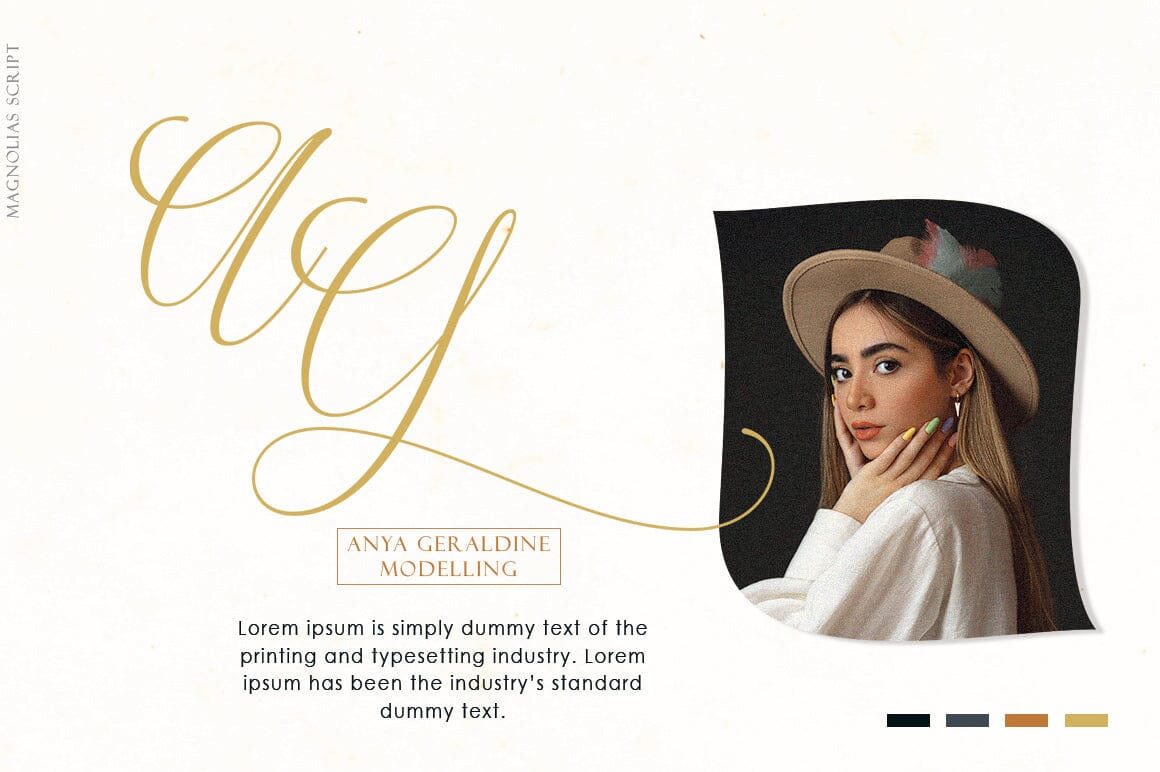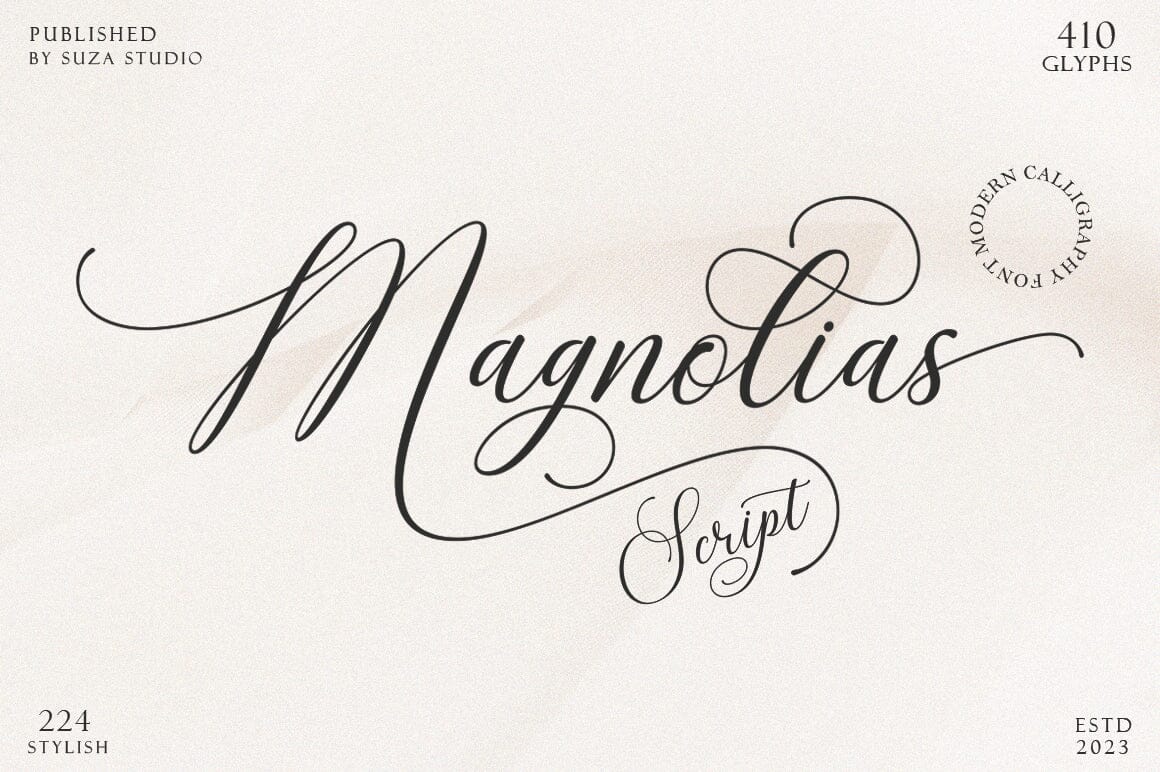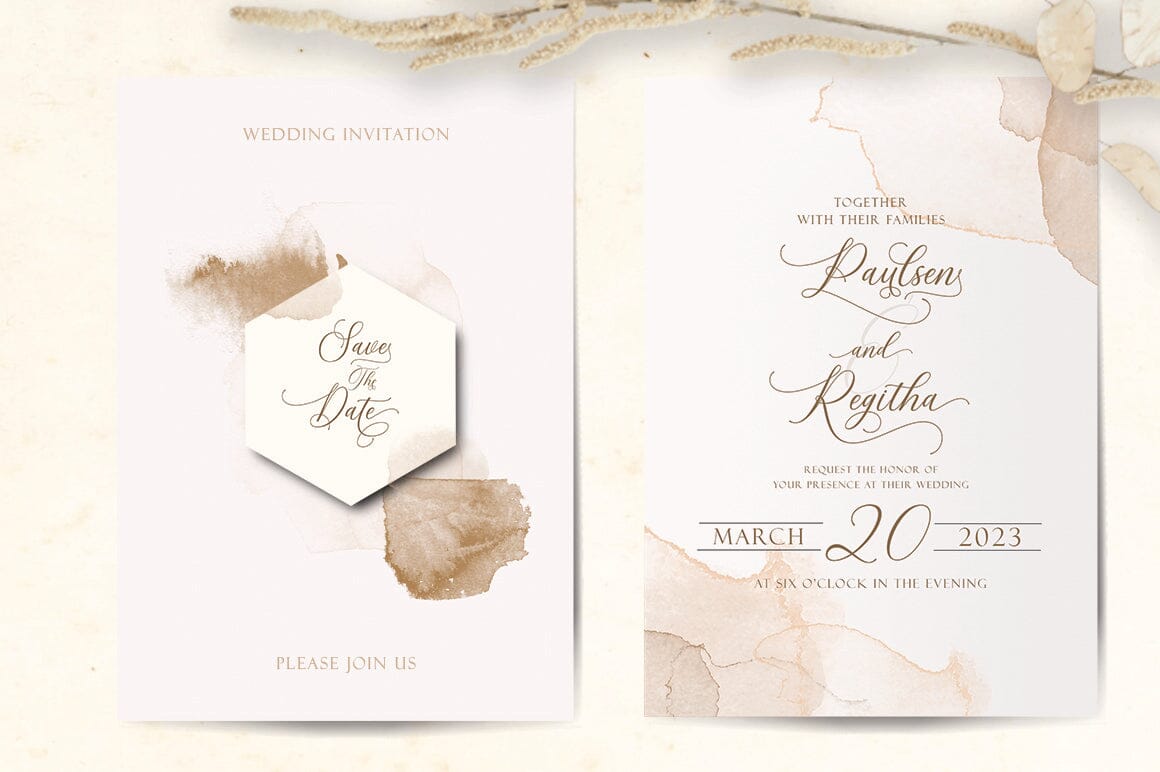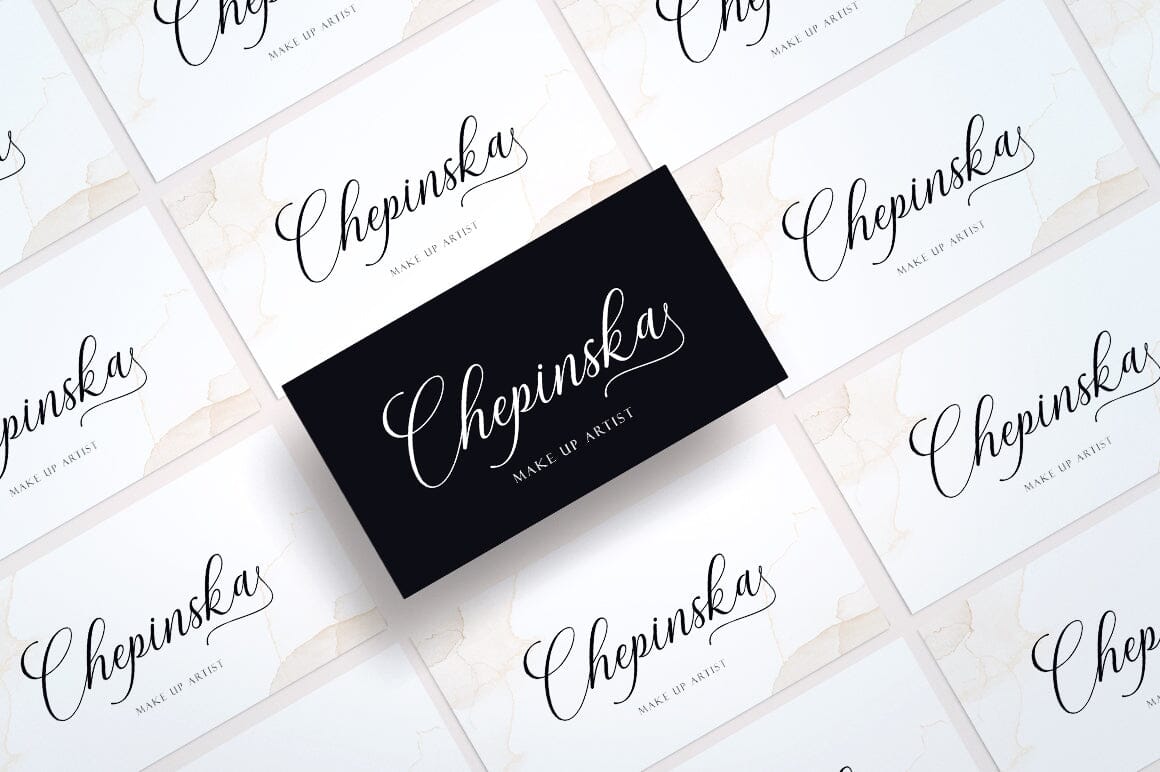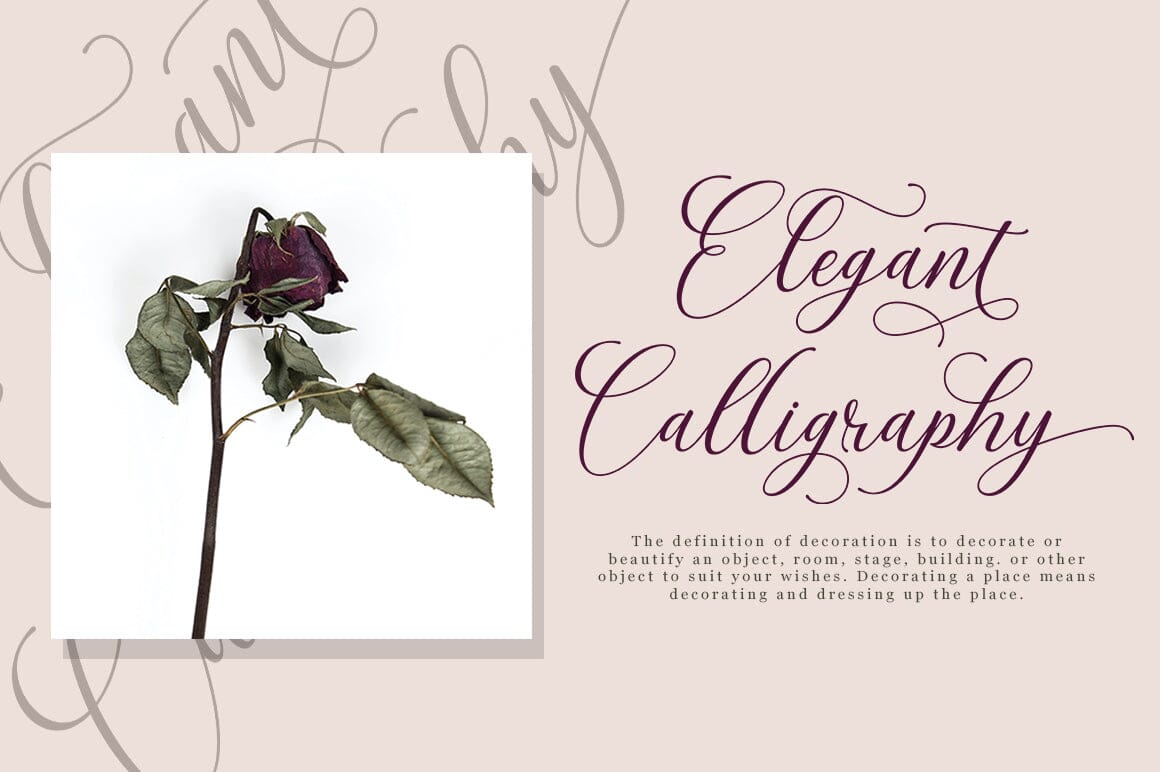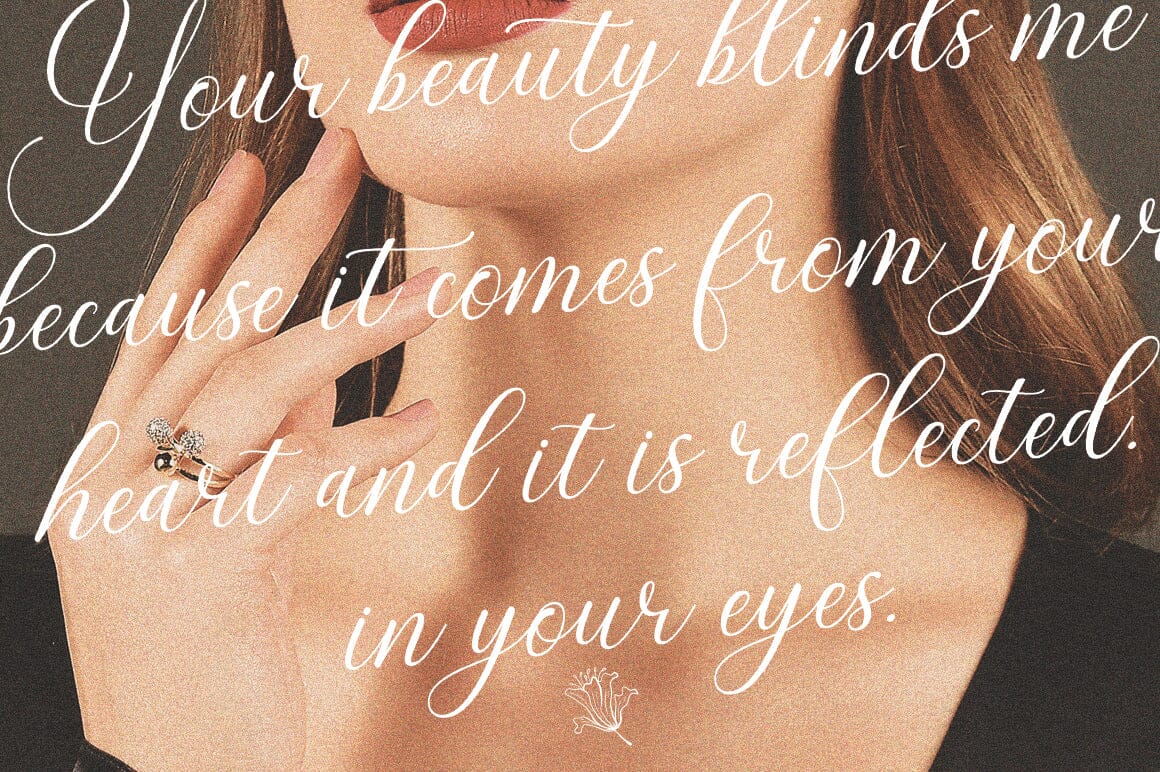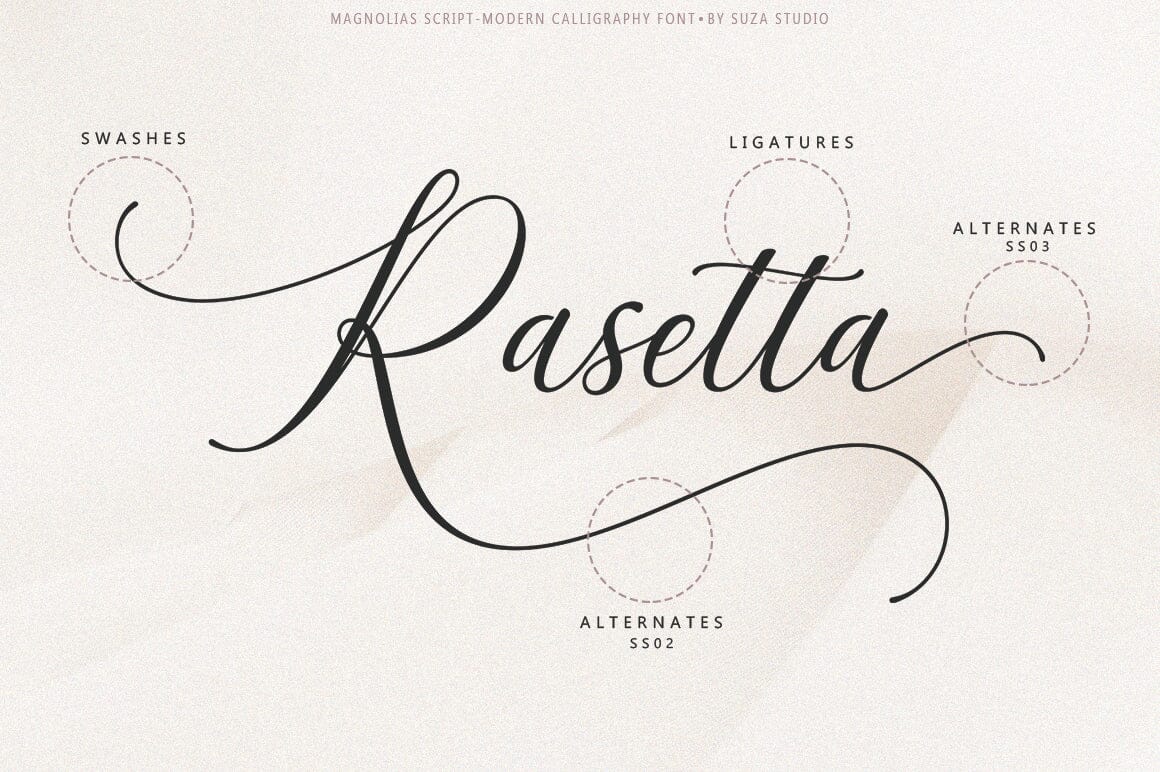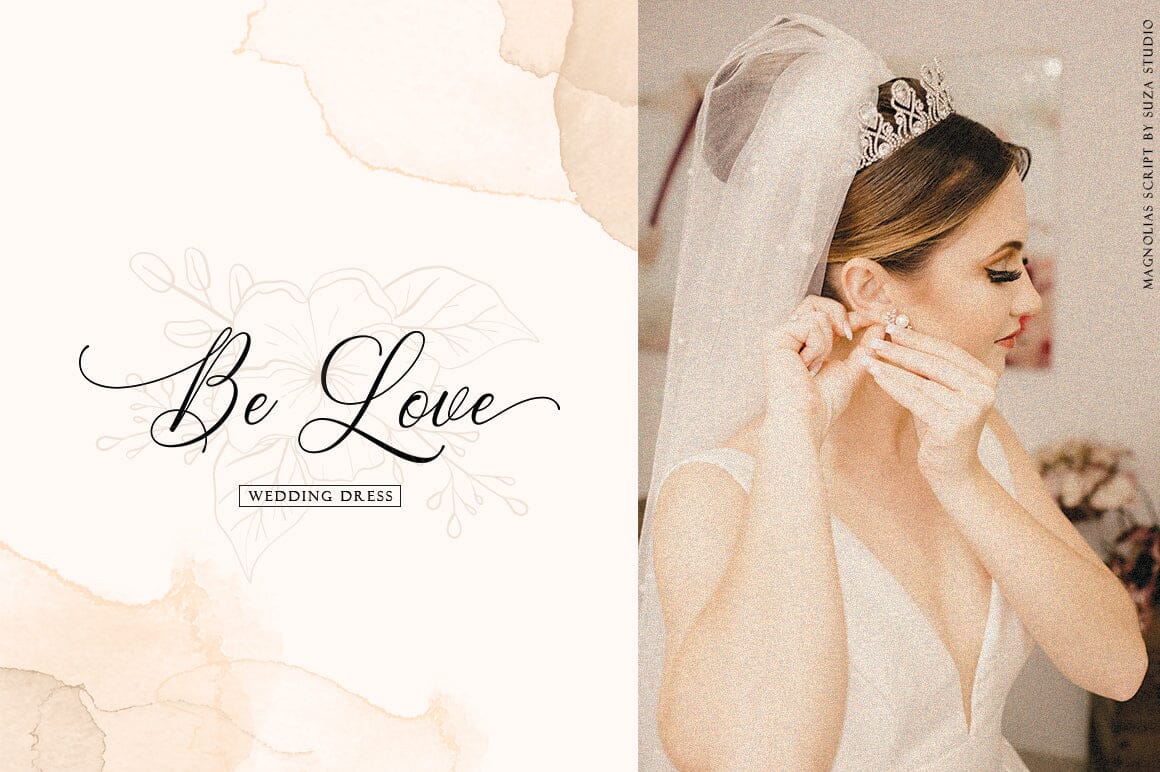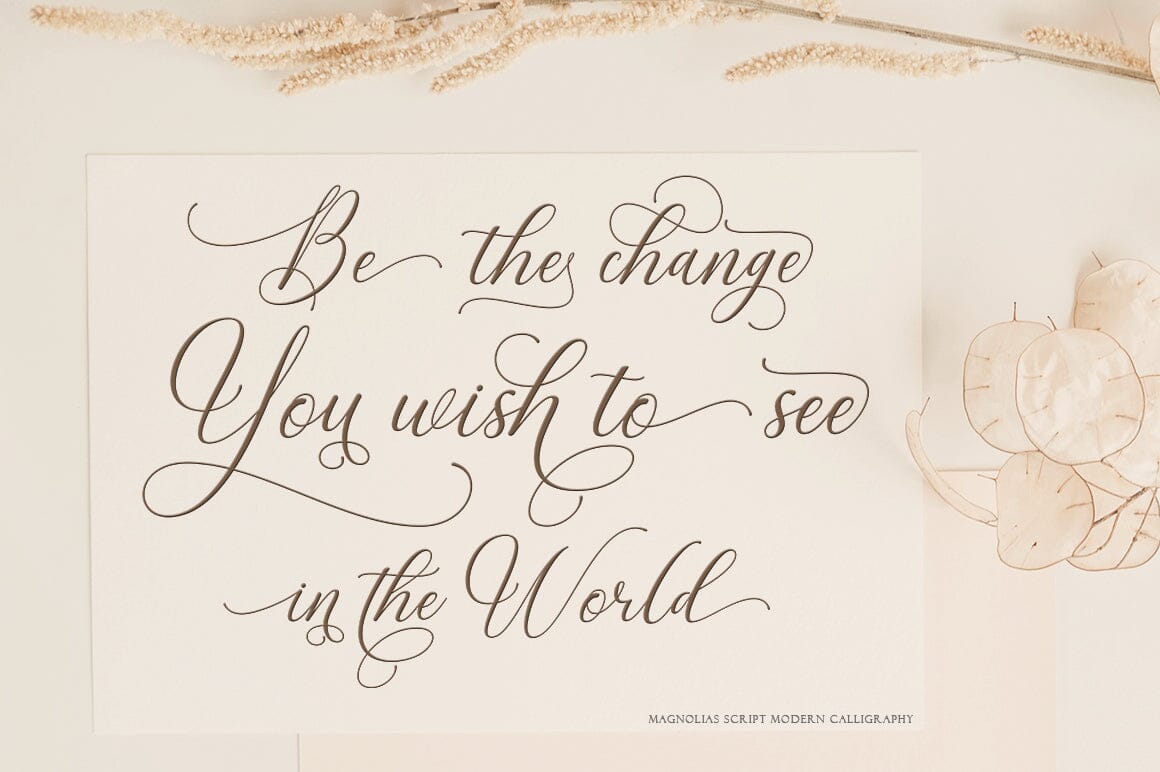
Magnolias
About Magnolias
Magnolias Script is a modern calligraphy script font that comes with beautiful and unique alternative characters. a mixture of copper calligraphy with a handttering style. Designed to present an elegant style. Magnolias Script is appealing because it’s smooth, clean, feminine, sensual, glamorous, simple, and very easy to read. The classic style is perfect for all kinds of formal items such as invitations, labels, menus, logos, fashion, makeup, stationery, letterpress, romantic novels, magazines, books, greeting / wedding cards, packaging, labels. Ð’ Magnolias Script features 410+ glyphs and 224 alternate characters and ligatures. including multiple language support. It features OpenType alternative styles, ligatures and strokes, which allow you to mix and match letter pairs to suit your designs, as well as a touch of ornamentation to give this font an elegant look. Ð’ Files include: Ð’ Magnolias Script (OTF, TTF) Ð’ To enable the OpenType Stylistic alternative, you need a program that supports OpenType features such as Adobe Illustrator CS, Adobe Indesign & CorelDraw X6-X7, Microsoft Word 2010 or a later version. There are additional ways to access the swash, using Character Map (Windows), Nexus Fonts (Windows), Font Books (Mac) or a software program such as PopChar (for Windows and Mac).